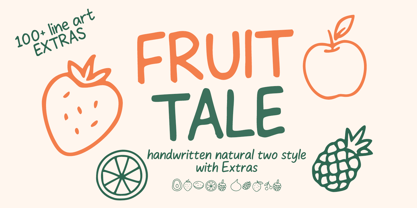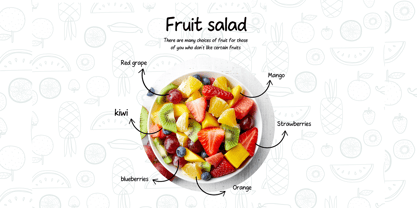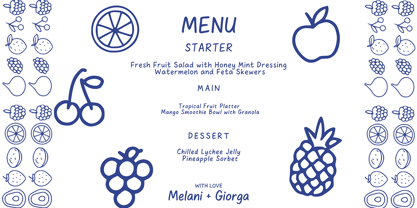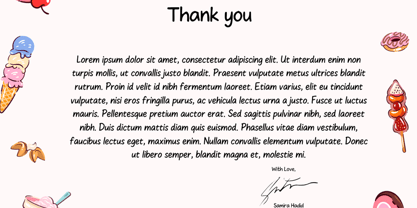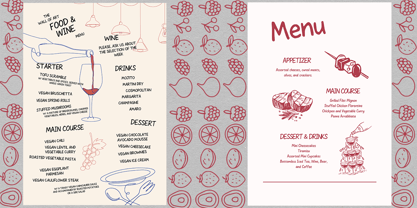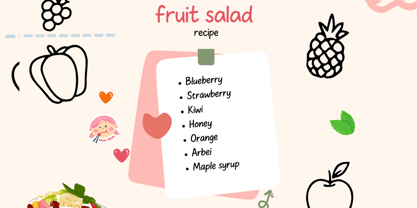
Fruit tale
by Cocodesign
The Fruit tale Font Family was designed by Muhammad Zaini and published by Cocodesign. Fruit tale contains 3 styles and family package options.
FRUIT TALE – Handwritten Natural Two-Style Font with Extras FRUIT TALE is a natural handwritten font featuring two playful styles designed to bring a fresh and cheerful look to any project. The lettering has an organic flow with smooth curves, giving it a friendly and approachable character. This font comes with 100+ fruit-themed line art extras, including strawberries, apples, oranges, pineapples, and more. Each illustration is crafted with clean, consistent lines, making them perfect as decorative elements.